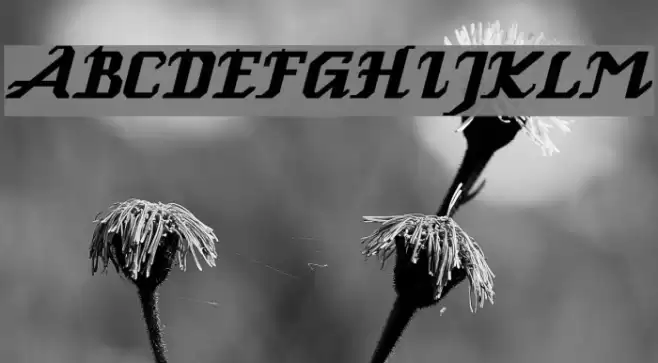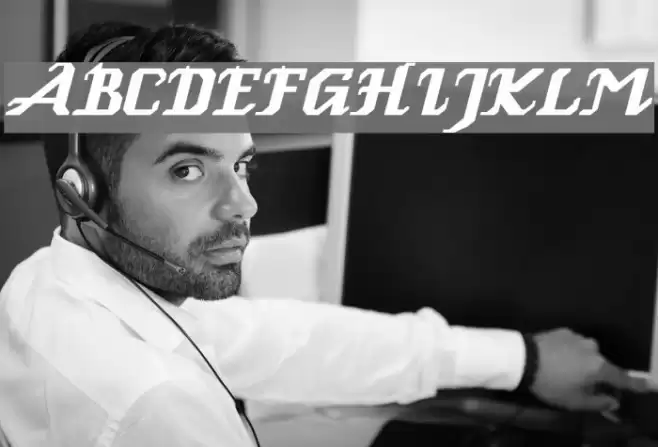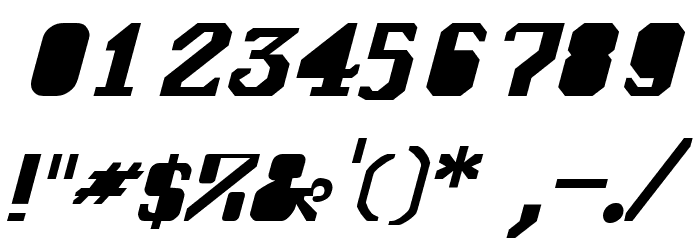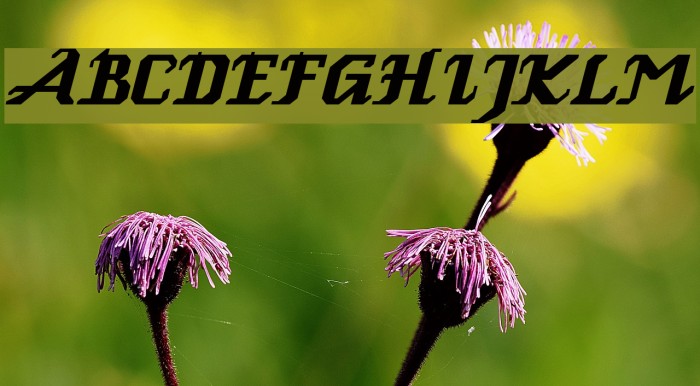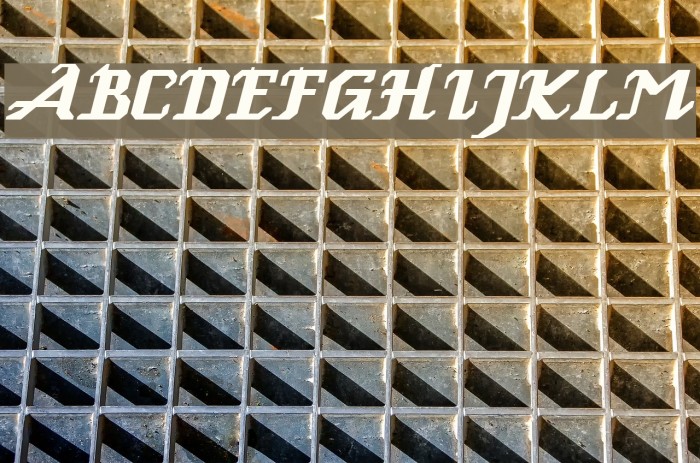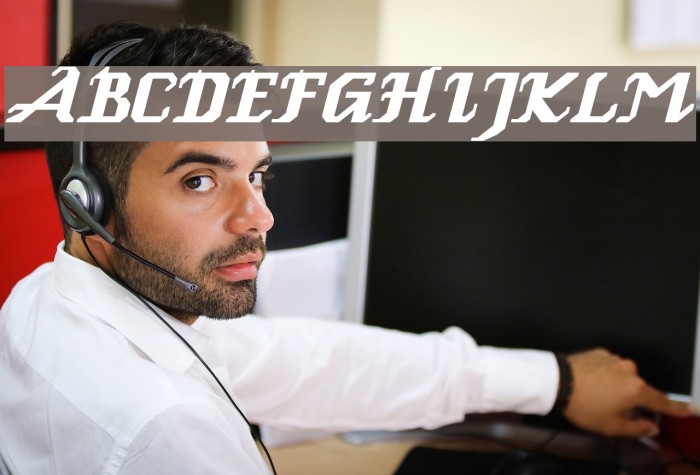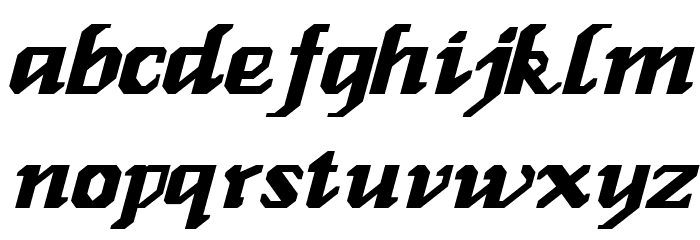
GenoaItalic Font
GenoaItalic Description
This font features a bold, italicized style with a strong presence and a distinct slant, giving it a dynamic and energetic appearance. The characters are sharply defined with angular edges, reminiscent of a calligraphic or blackletter influence. The uppercase letters are particularly striking, with a sense of movement and flair. The lowercase letters maintain this boldness, ensuring readability while adding a touch of elegance. Numbers and special characters are designed with the same bold, angular style, making them stand out effectively.
A bold, italicized font with a dynamic, angular style and calligraphic influence from Script fonts.
- Proposed Projects: Ideal for branding, logos, headlines, posters, and any design requiring a strong, impactful typeface.